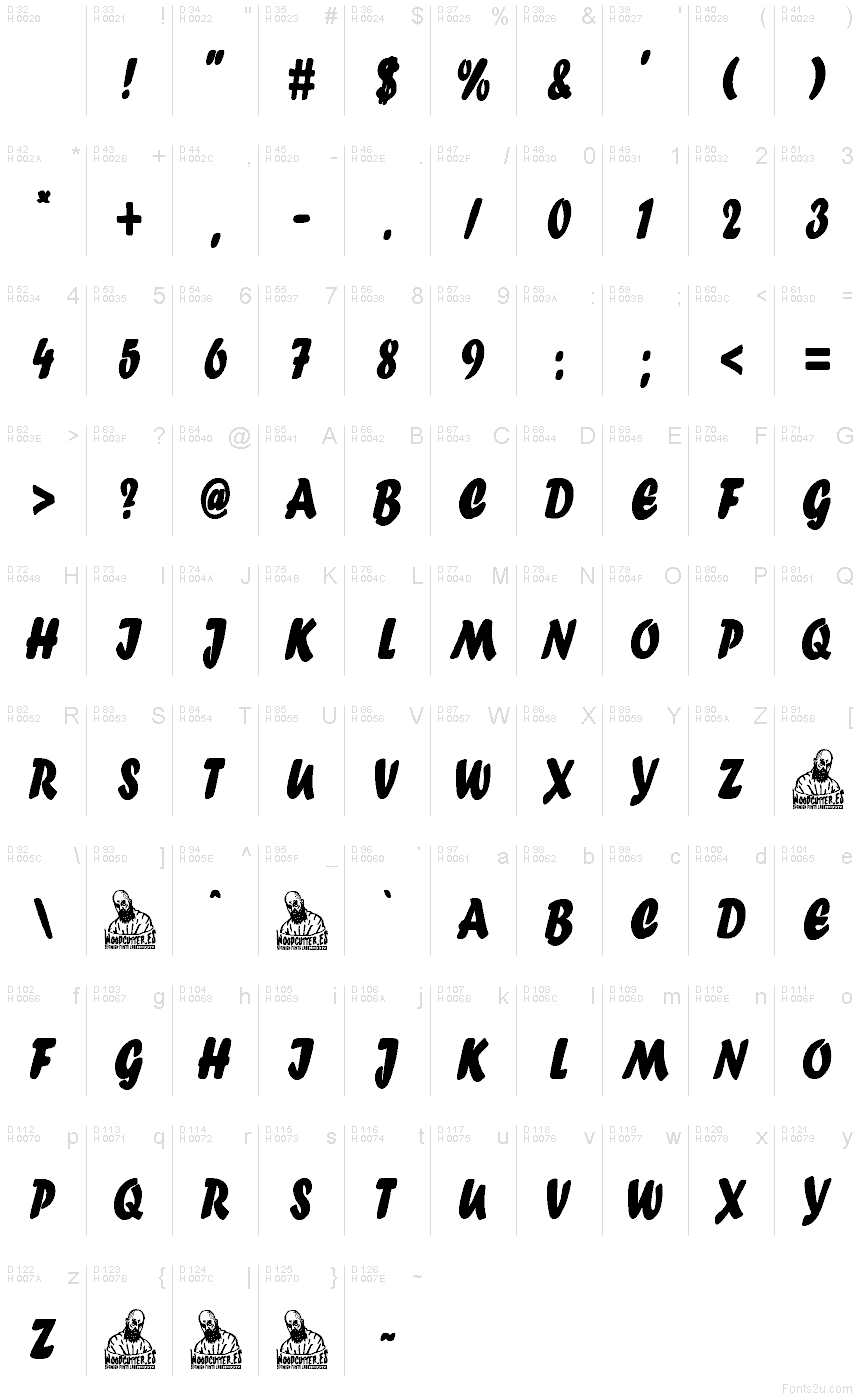
Guns Shop
Guns Shop font by Woodcutter is a free bold brush display font. Thick, inky strokes swell and taper like a fresh paint marker, with a forward lean that adds momentum and a touch of swagger. The letters feel hand‑pulled—slightly irregular, tightly knit, and full of sign‑painter energy—so headlines hit hard without losing warmth.
Guns Shop.